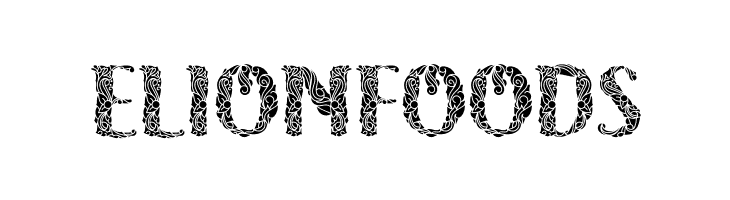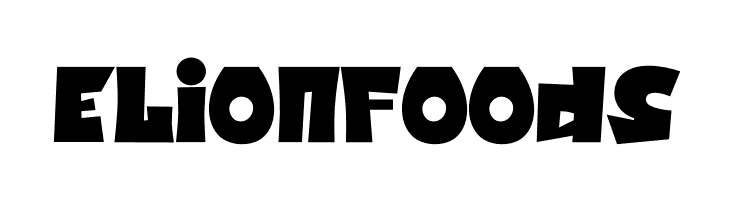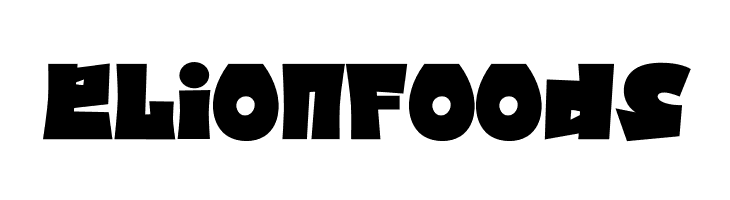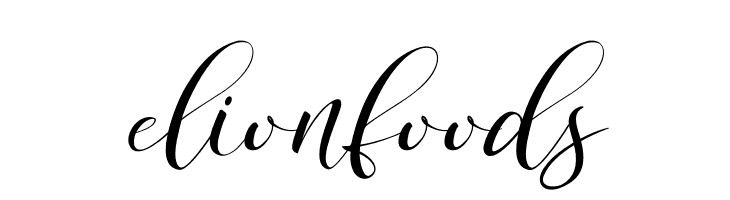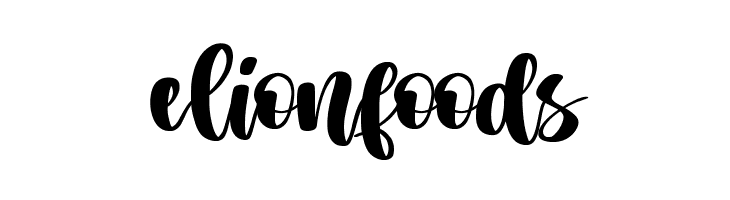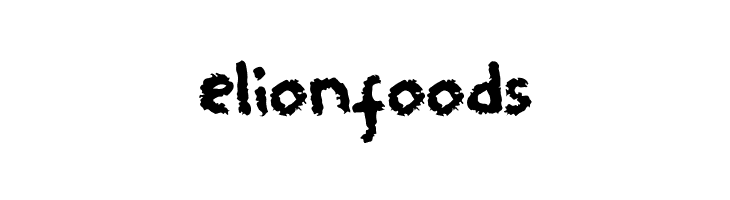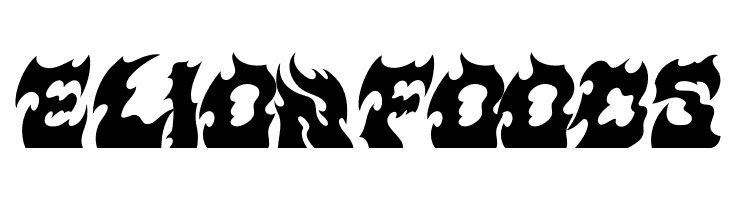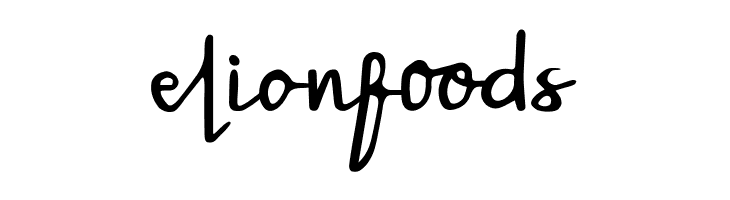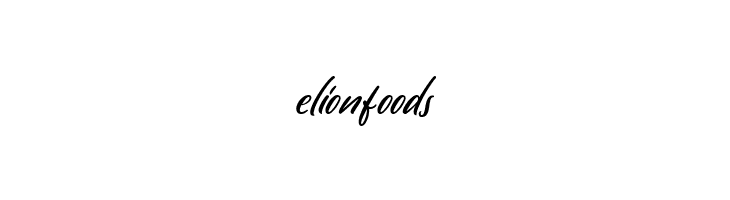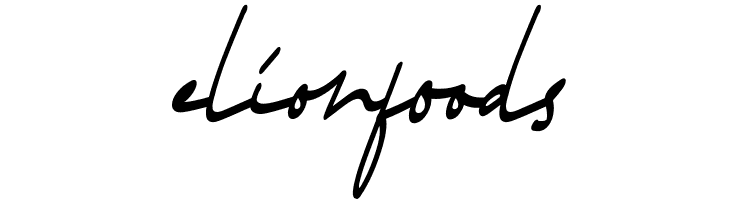
A playful, handwritten font with a smooth, flowing style.
A decorative and whimsical font with elegant swirls and curls.
A bold, angular font with a modern and edgy design.
A bold, playful font with a cartoon-like, quirky style.
A bold, dripping font ideal for horror or Halloween themes.
A bold, dripping font perfect for horror and Halloween themes.
A bold, handwritten font with a playful and dynamic style.
A dynamic handwritten font with fluid, connected strokes and a lively appearance.
A bold, modern font with a geometric structure and consistent stroke widths.
A bold, playful font with a hand-drawn, energetic style.
A stylish and elegant script font with flowing, cursive strokes.
An elegant, italic script font with flowing, connected characters.
A bold, playful handwritten font with a casual and friendly style.
Tall, thin handwritten script with playful, casual style.
Expressive, brush-script font with a festive, hand-lettered look.
A playful and elegant handwritten script font with whimsical flourishes.
A delicate and elegant handwritten script font with flowing strokes.
A whimsical and elegant script font with flowing, interconnected letterforms.
An elegant, flowing script font with graceful curves and a sophisticated style.
An elegant, flowing script font with a sophisticated, handwritten style.
A playful, bold, and rounded font with a whimsical style.
Bold cursive script with a handwritten style.
An elegant, flowing handwritten font with interconnected letters and a delicate touch.
A bold, playful script font with smooth, flowing curves and a hand-drawn appearance.
A bold, decorative font with playful curls and thick strokes.
A bold, vintage-inspired font with a playful, retro aesthetic.
A bold, brush script font with dynamic, hand-drawn strokes.
An elegant, flowing cursive font with high contrast and delicate strokes.
A playful, whimsical font with flowing, cursive-like strokes and rounded edges.
An elegant and flowing script font with decorative uppercase and fluid lowercase letters.
Bold, rounded handwritten font with a playful style.
Bold, playful handwritten script font.